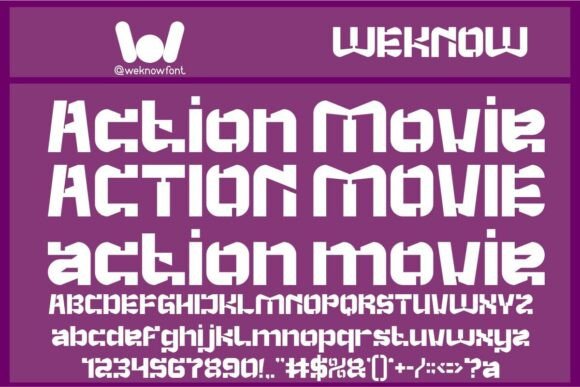
Unlock the Future of Design with Action Movie Font
I’ll never forget the late nights spent working on a project, desperately searching for the perfect font to capture the essence of a futuristic tech brand. The struggle was real – until I stumbled upon Action Movie, a bold, stencil-style font that instantly transported me into a world of limitless possibilities. In this article, we’ll dive into the world of Action Movie, exploring its features, uses, and everything in between.
As a designer, I’m always on the lookout for fonts that can elevate my projects and make them stand out. Action Movie has been a game-changer for me, and here’s why:
- ✨ Bold and eye-catching: Action Movie’s geometric, blocky appearance demands attention and makes it perfect for headlines, logos, and titles.
- ✅ Versatile: This font seamlessly blends into various creative endeavors, from music and movies to games, magazines, and social media platforms.
- 💻 Techno-sci-fi allure: Action Movie’s futuristic vibe is unmatched, making it an excellent choice for projects that require a technological or sci-fi edge.
While Action Movie is an exceptional font, it’s not without its quirks:
- 🤔 Limited use in body text: Due to its bold and stencil-style design, Action Movie might not be the best choice for lengthy body text. It’s better suited for headlines and titles.
- ⚠️ Glyph limitations: Some users might find the glyph options limited, but this can be mitigated by exploring OpenType features and stylistic alternates.
Action Movie was inspired by the futuristic world of science fiction, where technology and innovation reign supreme. The font’s designer sought to create a typeface that would capture the essence of this world, with its bold, geometric lines and techno-sci-fi allure.
| What is Action Movie font best suited for? | Action Movie is best suited for headlines, titles, logos, and projects that require a bold, futuristic look. |
| Can I use Action Movie for body text? | While Action Movie can be used for body text, it’s not recommended due to its bold and stencil-style design. It’s better suited for headlines and titles. |
In conclusion, Action Movie is a powerful font that can elevate your designs and transport you into a world of limitless possibilities. With its bold, geometric lines and techno-sci-fi allure, it’s perfect for projects that require a futuristic edge. By exploring its features, uses, and OpenType features, you can unlock the full potential of Action Movie and take your designs to the next level.